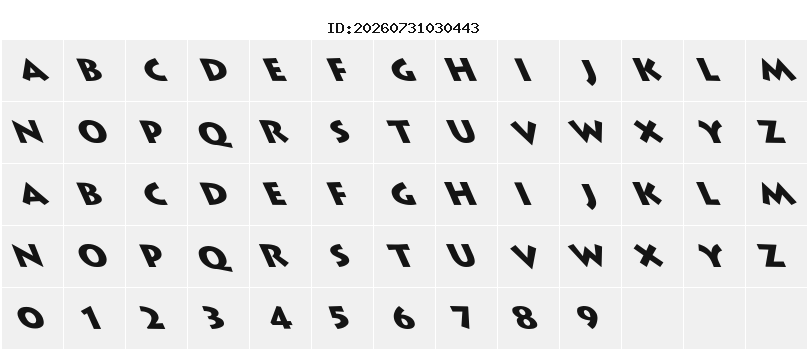
Lithograph Leftie Preview
• Font Name: Lithograph Leftie
• Full Font Name: Lithograph Leftie
About Lithograph Leftie.ttf
Lithograph Leftie.ttf is a modern, elegant sans-serif font designed for ultimate readability and visual harmony. Perfect for branding, headlines, web design, and print materials.